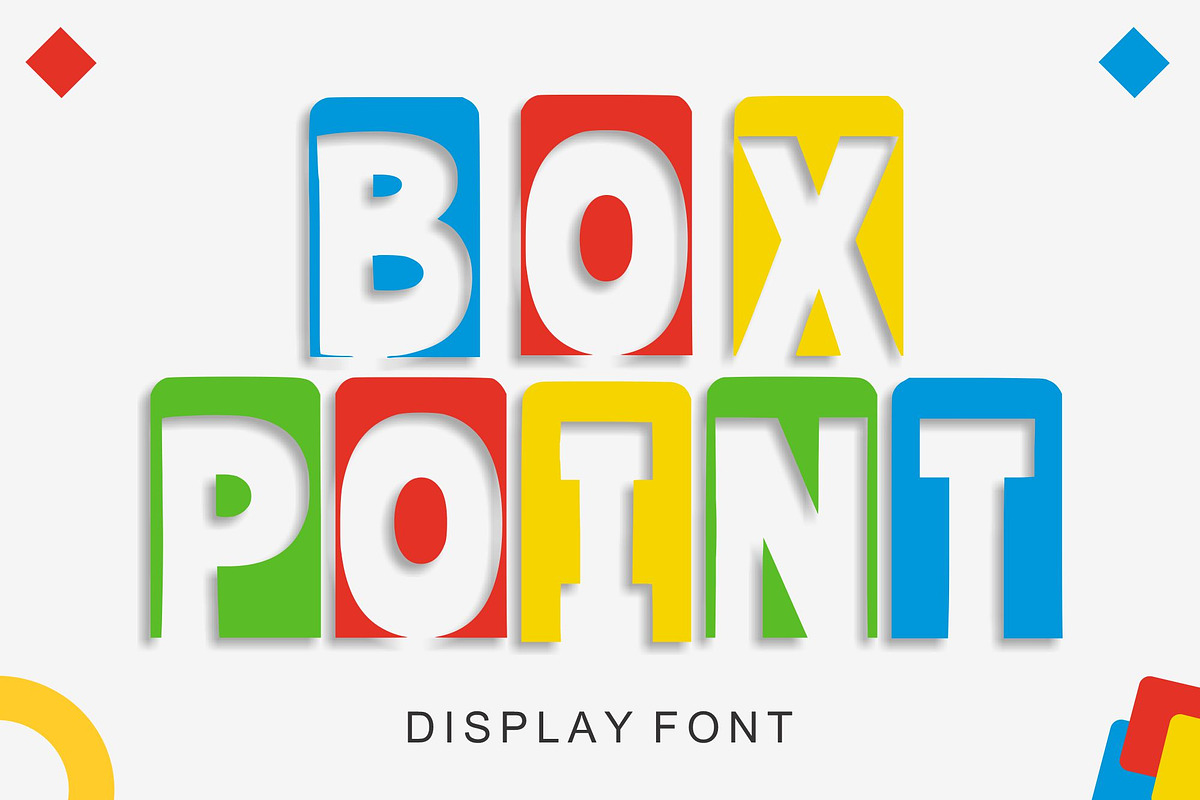
Box Point
Box Point is a cute and playful display font that features box-shaped letters that are perfect for adding a fun touch to any project. With its simple yet bold design, this font is sure to catch the eye and add a touch of whimsy to any design.